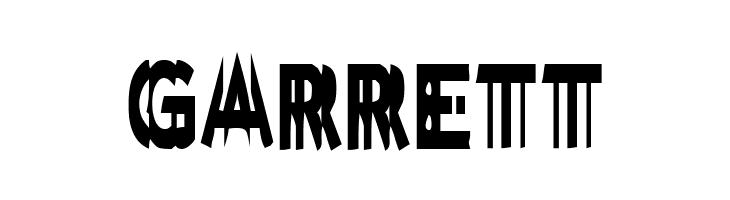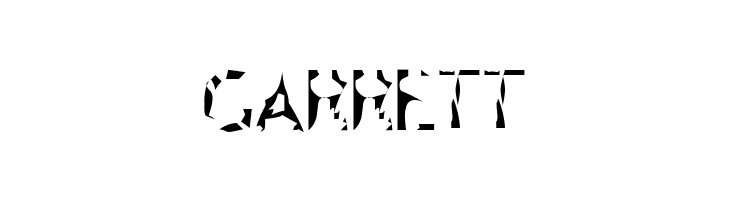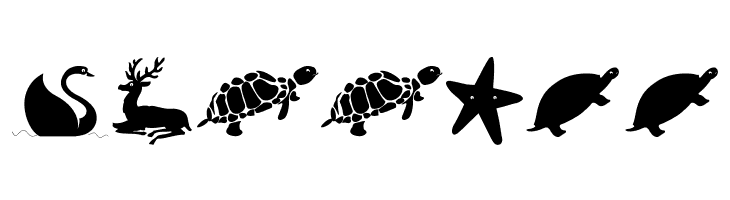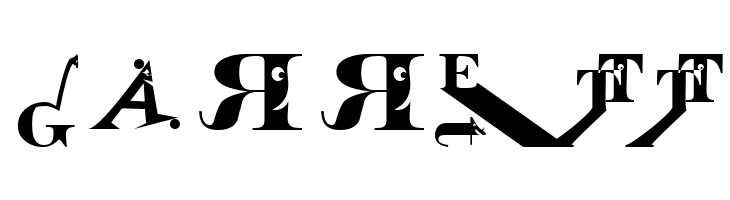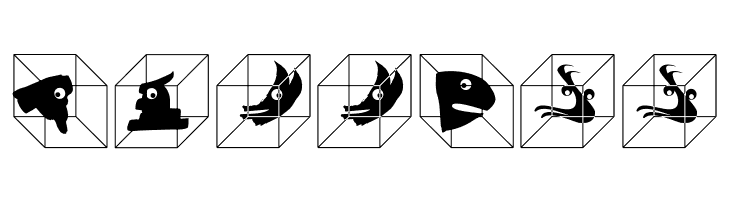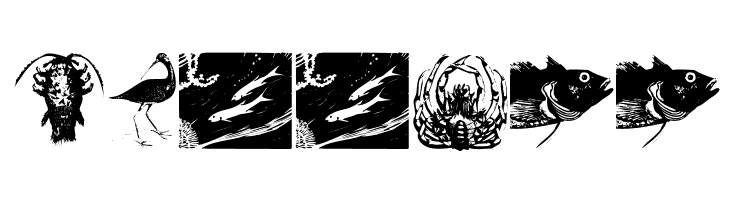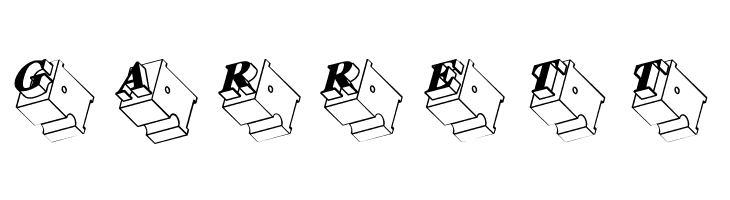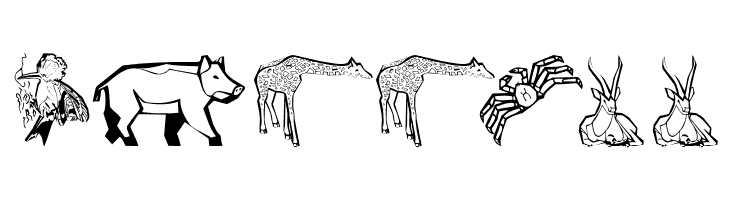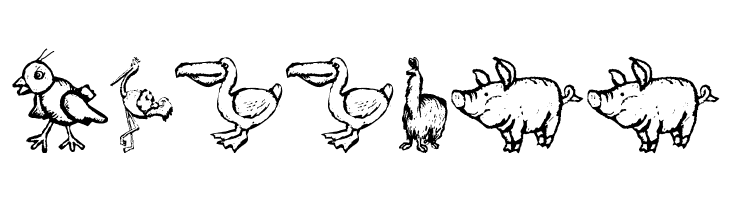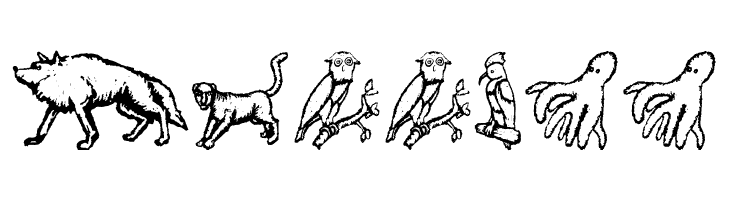
Animal illustration font with each character depicted as a unique animal or bird.
A playful and decorative set of animal illustrations within cubes.
A playful, animal-themed decorative font with high contrast and intricate details.
A whimsical font made of detailed animal illustrations representing each character.
Hand-drawn animal doodle font with a playful, illustrative style.
A playful, hand-drawn animal illustration font perfect for creative projects.
A decorative font with whimsical animal illustrations for each character.
Illustrative animal and insect silhouette font with decorative glyphs.
Animal silhouette font with each character as a distinct animal shape.
A bold, 3D block-style font with a playful and decorative appearance.
An angular, runic-inspired font with a bold, hand-drawn appearance.